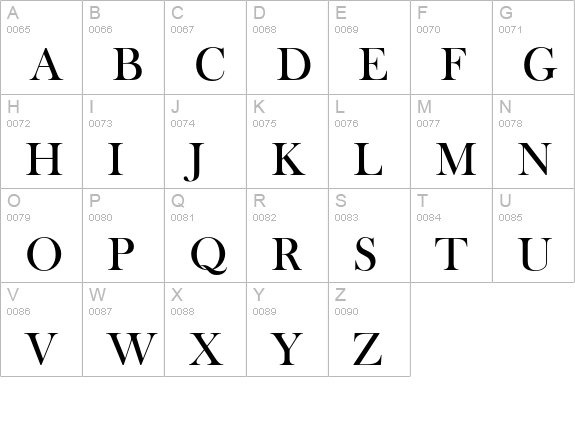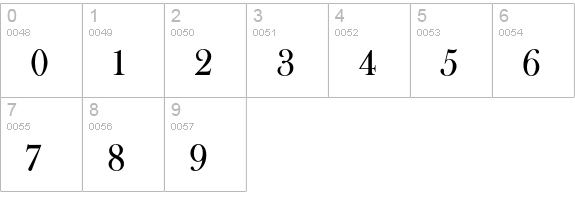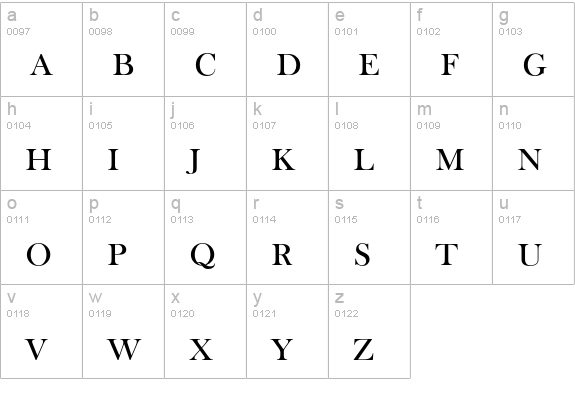
Baskerville Old Face DC D Font Details
Baskerville Old Face DC D font is a classic and elegant serif typeface that exudes sophistication and timeless charm. Its refined design features delicate serifs, graceful letterforms, and a sense of traditional craftsmanship. Perfect for creating elegant and professional designs, this font is versatile and can be used for a wide range of projects. What makes Baskerville Old Face DC D font even more appealing is that it is available for free download at FontsMarket.com. This means that you can access this exquisite typeface without any cost, making it a valuable addition to your font library. Whether you are working on branding materials, editorial designs, or any other project that requires a touch of sophistication, Baskerville Old Face DC D font is sure to elevate your work to the next level. Download it today and add a touch of timeless elegance to your designs.